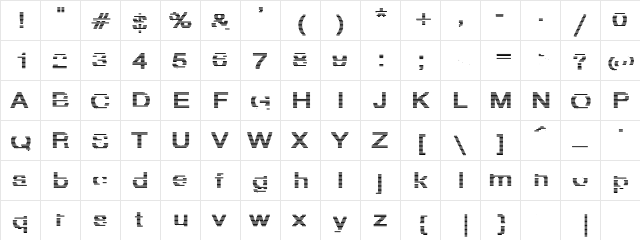
HvStripe-ExtraBold Hollow Regular
Design Context for HvStripe-ExtraBold Hollow Typeface
HvStripe-ExtraBold Hollow takes a measured approach to typography — its balanced proportions and neutral character make it a reliable workhorse for both digital and print work. The heavy weight commands attention and anchors typographic hierarchies.